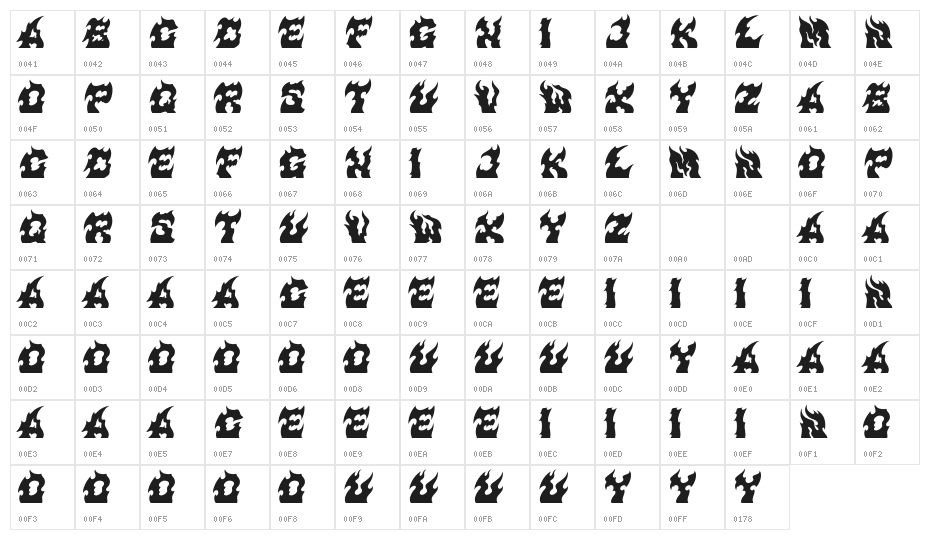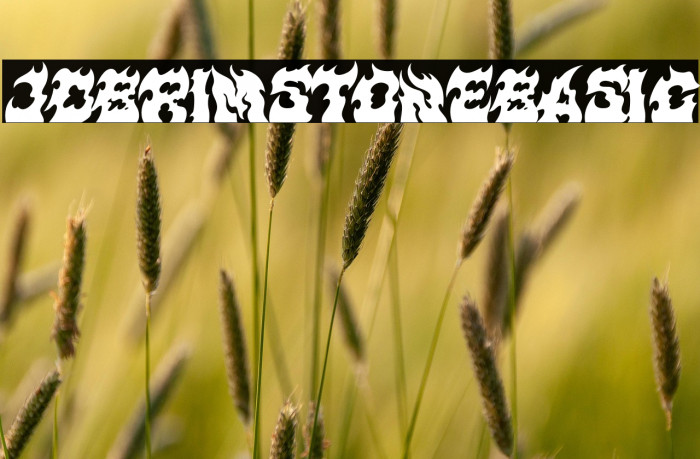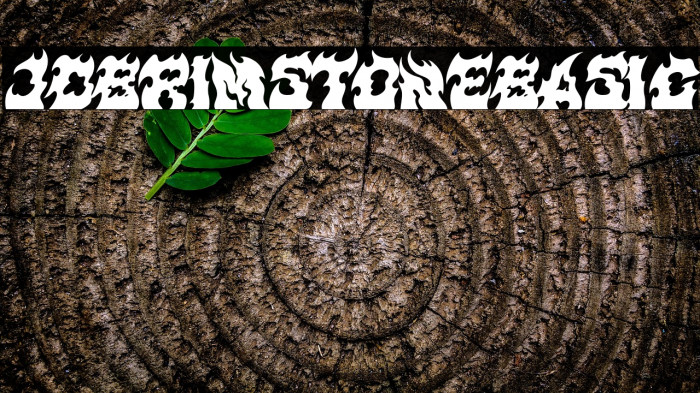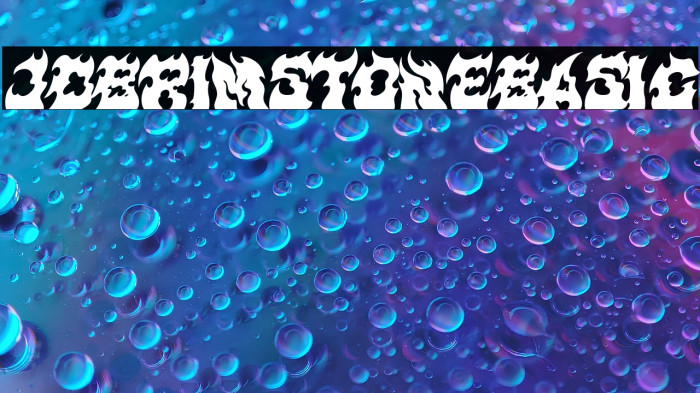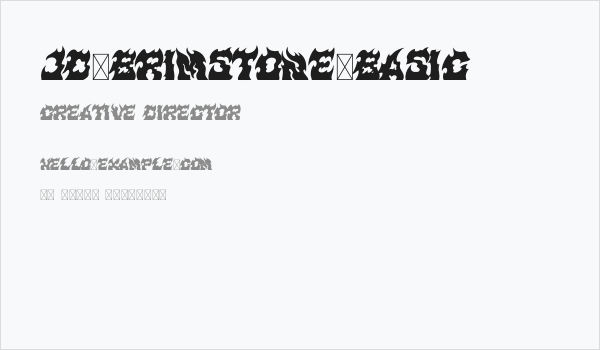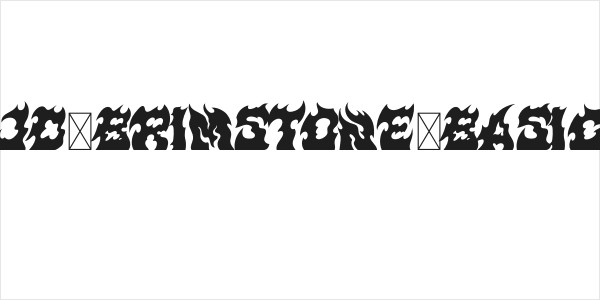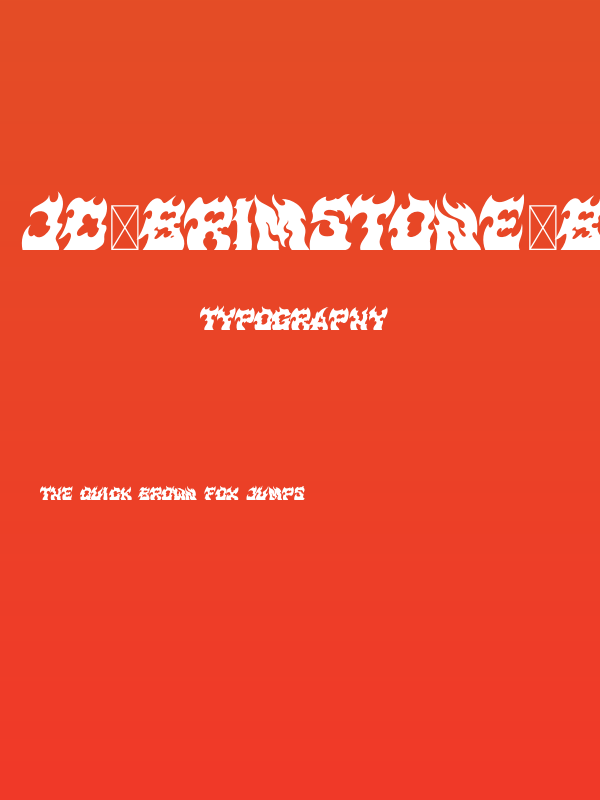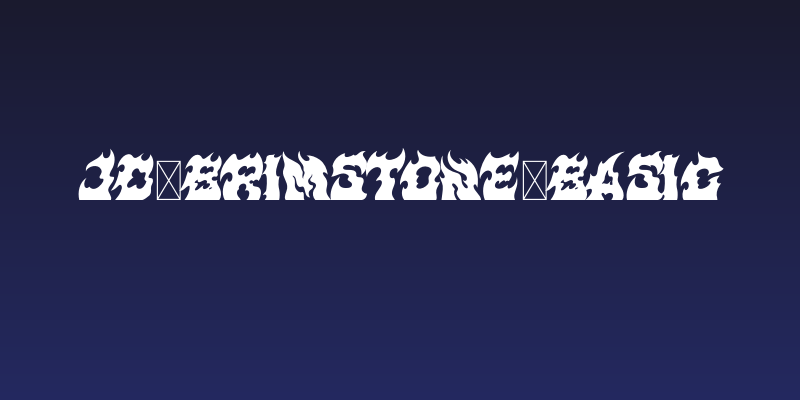
JD-BRIMSTONE-BASIC Font
JD-BRIMSTONE-BASIC Description
This font features a bold and fiery design, with each character appearing as if it's engulfed in flames. The letters are thick and have a strong presence, making them ideal for attention-grabbing headlines or thematic designs. The uppercase and lowercase letters maintain a consistent style, with the flames adding a dynamic and energetic feel. The absence of numbers and special characters suggests a focus on alphabetic text, enhancing its use in specific thematic contexts.
| Proposed Projects | Perfect for event posters, themed party invitations, or any design needing a fiery and bold statement. |